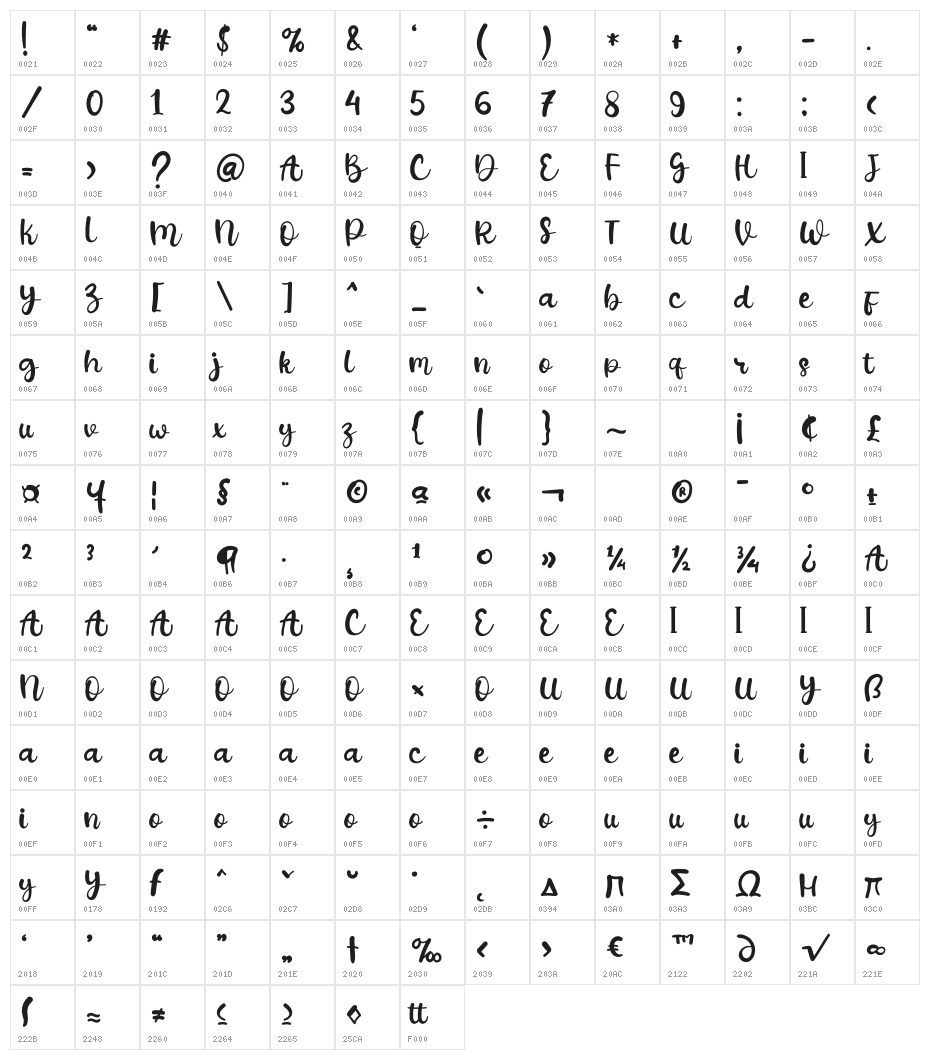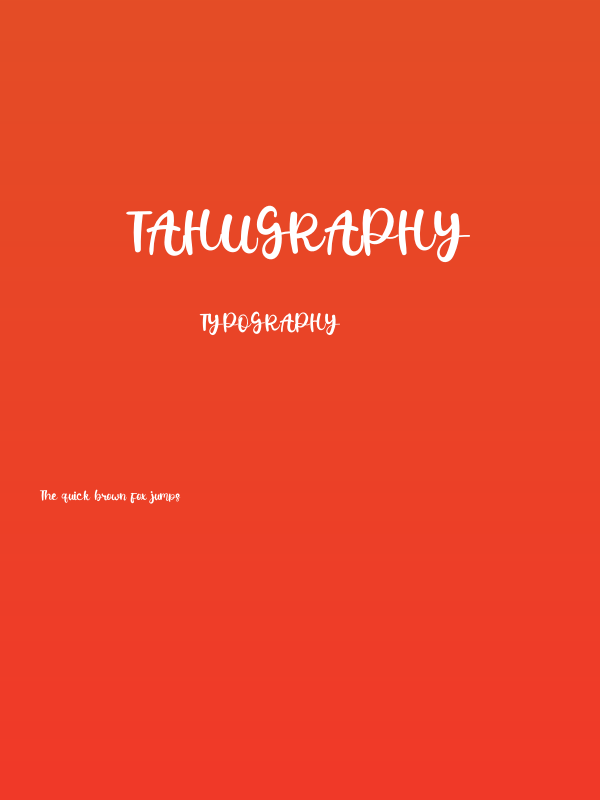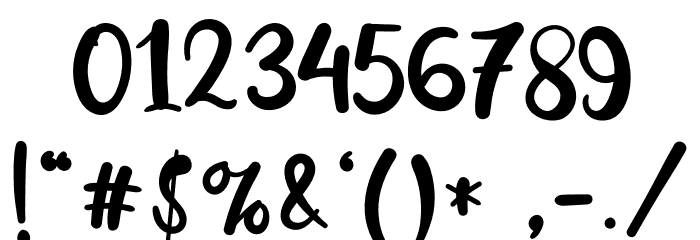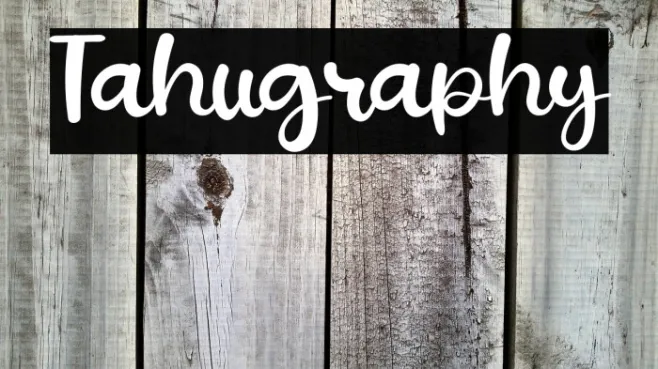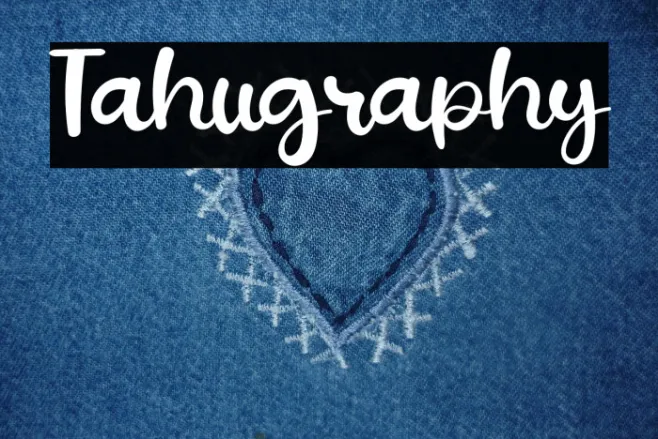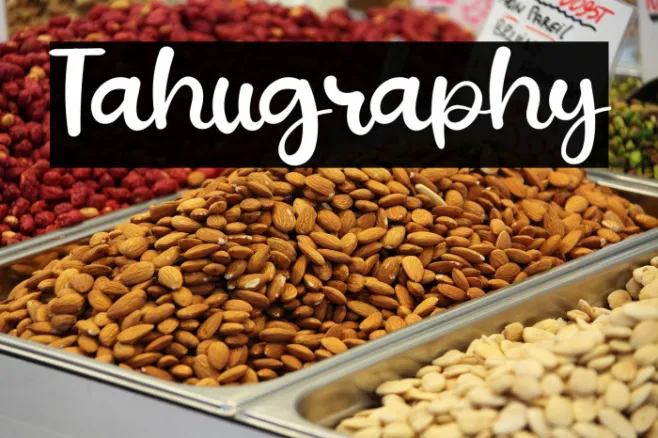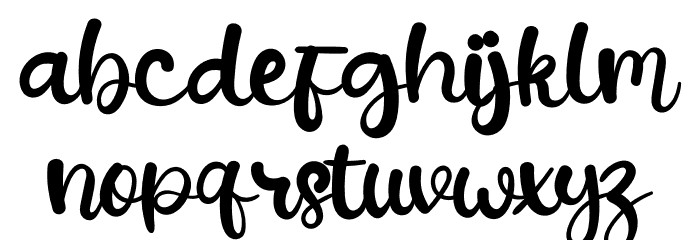
Tahugraphy Font
Tahugraphy Description
This font features a playful and energetic script style with a handwritten appearance. The letters are bold and rounded, with a consistent flow that mimics natural handwriting. The uppercase letters are slightly larger and more pronounced, while the lowercase letters maintain a smooth and cohesive look. The numbers and special characters are designed to match the overall style, adding a whimsical touch. The strokes are thick, providing a strong presence on the page, and the overall design is both modern and approachable, making it suitable for a variety of creative projects.
| Proposed Projects | Ideal for greeting cards, invitations, logos, and branding materials that require a personal and friendly touch. |